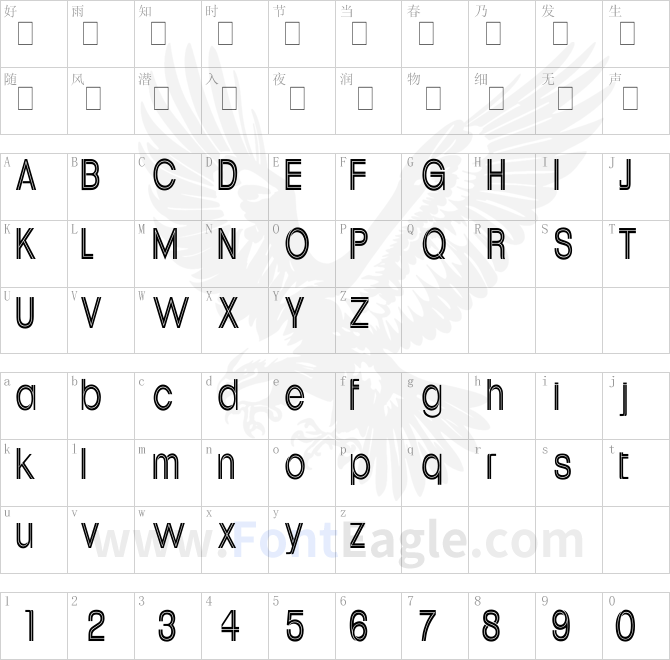
- Font name:Uptight Cn
Uptight-Cn is a great font, widely used in graphic design, single-page menu design, poster design and other fields, and is deeply loved by designers.Uptight-Cn download.